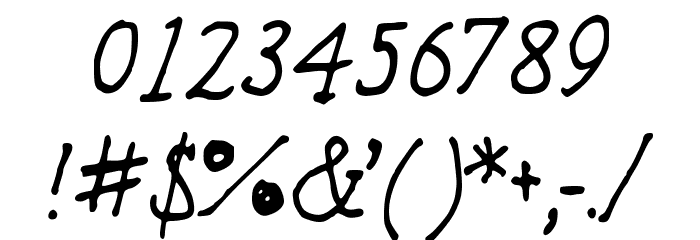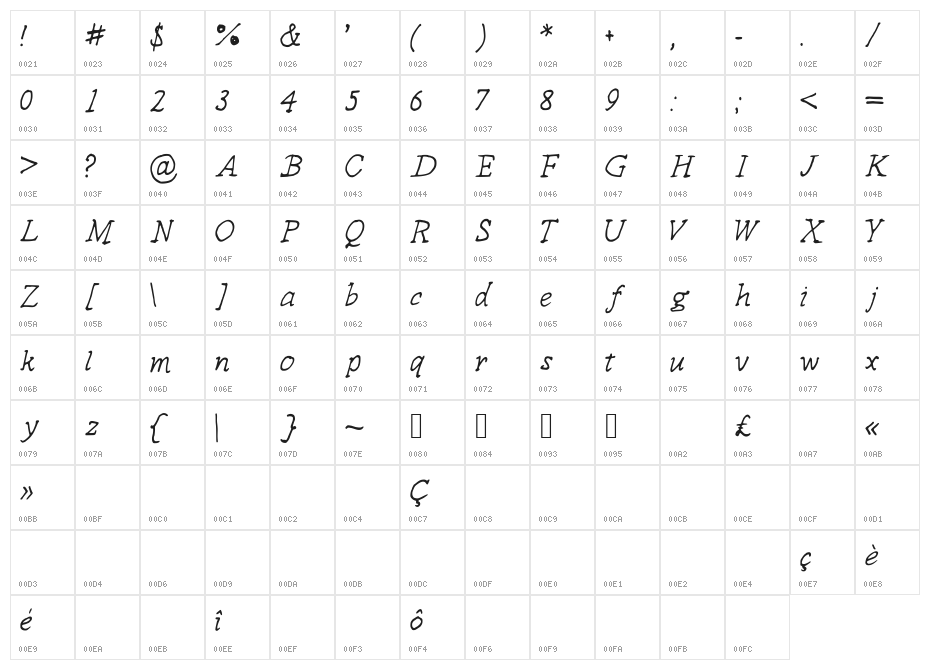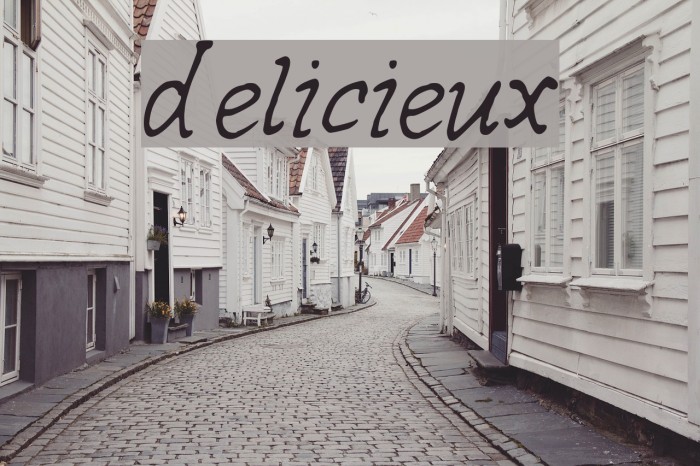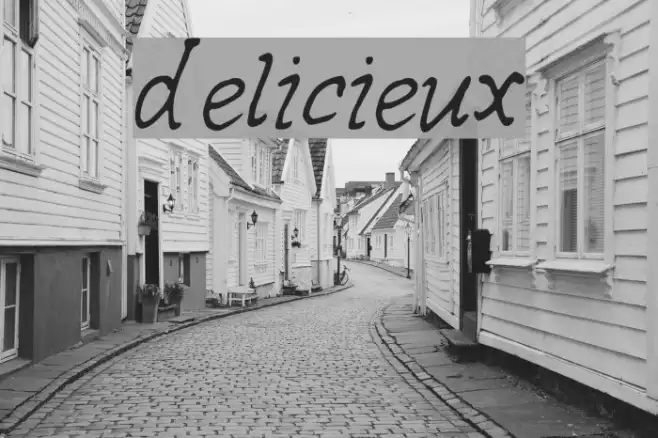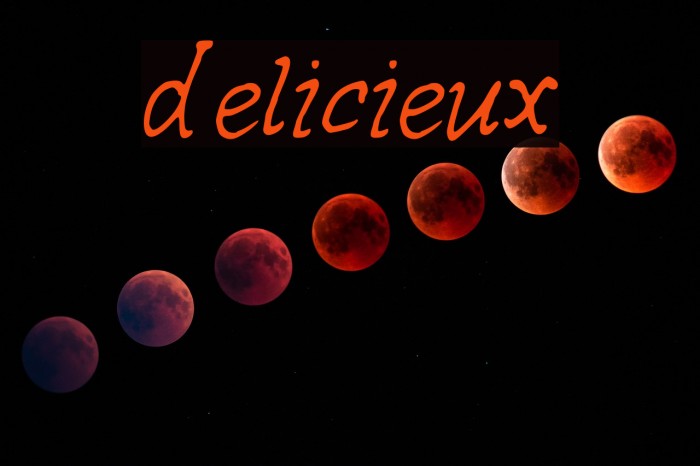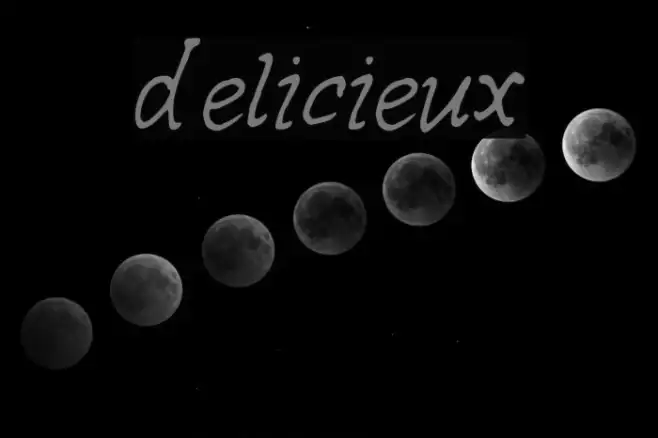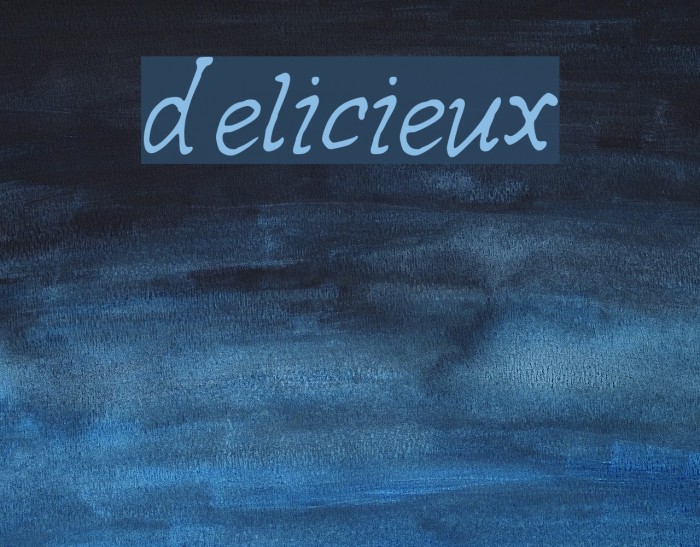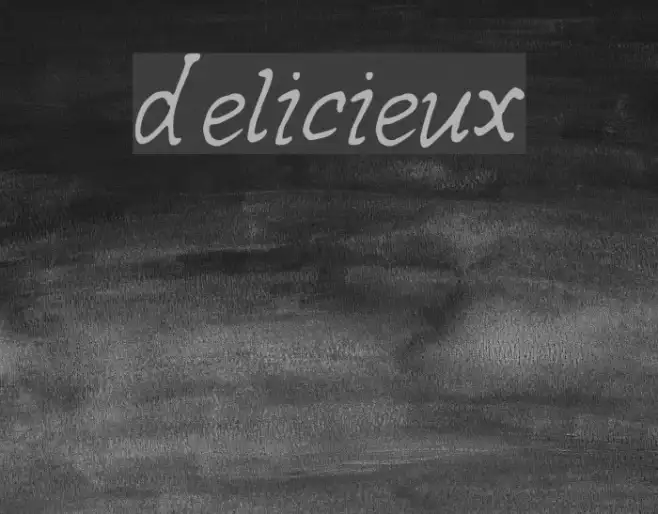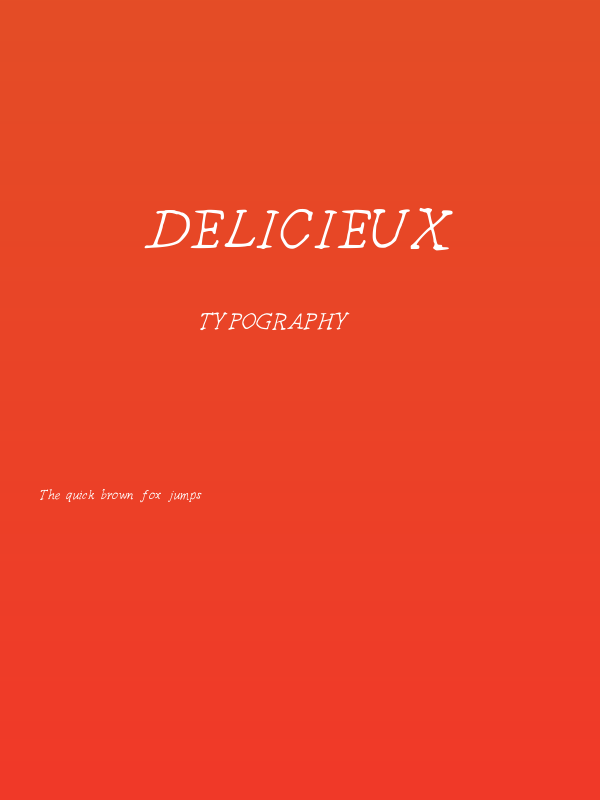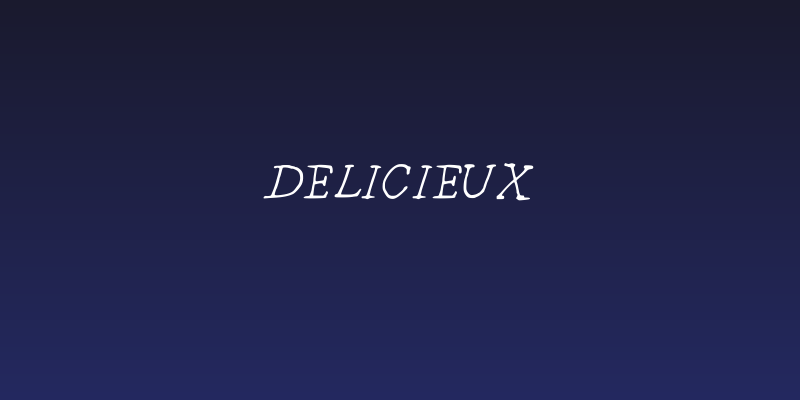
delicieux Font
delicieux Description
This font exudes a charming and elegant handwritten style, characterized by its fluid and slightly italicized strokes. The letters are crafted with a consistent slant, giving it a dynamic and lively appearance. The uppercase letters maintain a sense of formality, while the lowercase letters are more playful and flowing. The numerals and special characters are designed to complement the overall aesthetic, ensuring readability and style. This font is perfect for projects that require a personal touch, such as invitations, greeting cards, or branding materials that aim to convey sophistication and warmth.
| Overall Style | Elegant, Personal |
| Use Case | Headlines, Invitations, Greeting Cards |
| Proposed Projects | Ideal for invitations, greeting cards, branding materials, and any project needing a personal touch. |